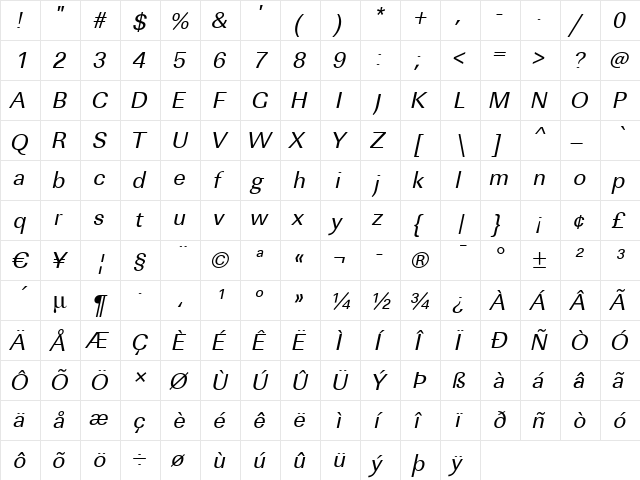
JeffBecker Italic
Design Context for JeffBecker Typeface
JeffBecker takes a measured approach to typography — its balanced proportions and neutral character make it a reliable workhorse for both digital and print work. The slanted form adds forward momentum and visual energy.